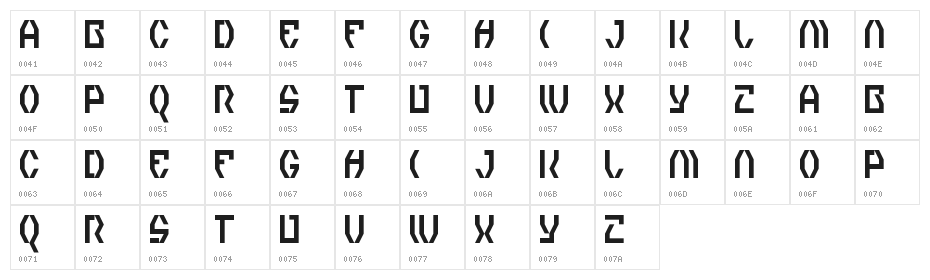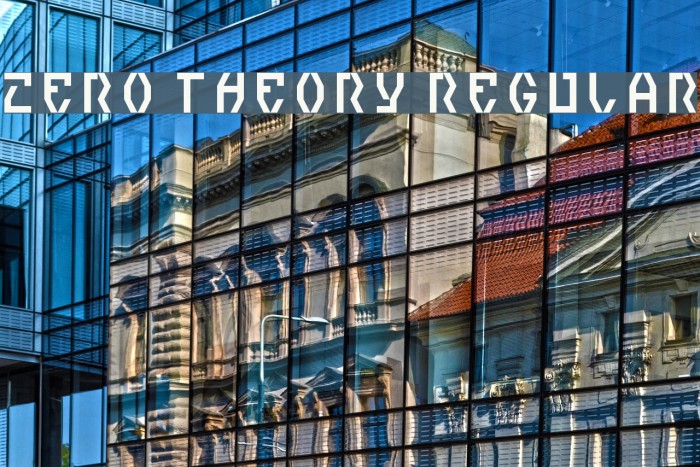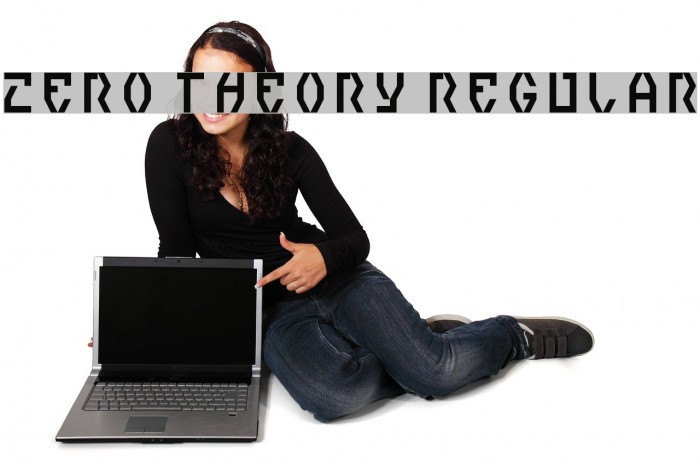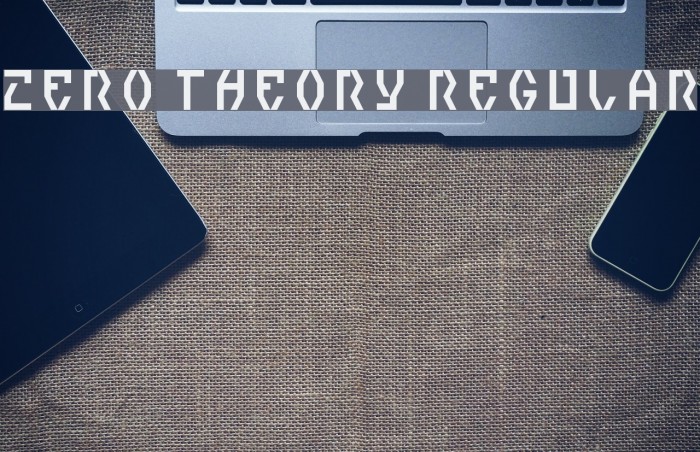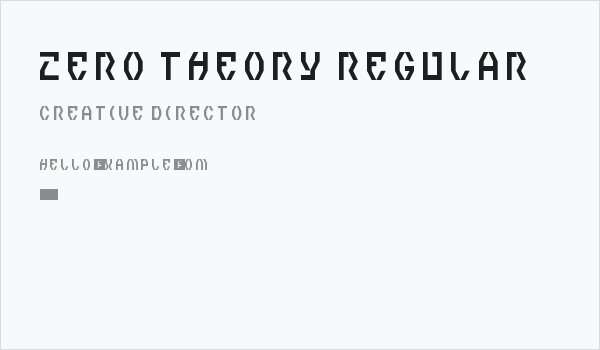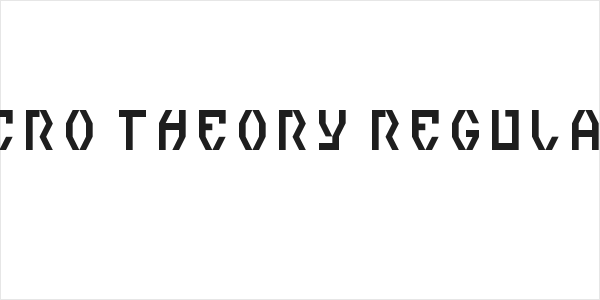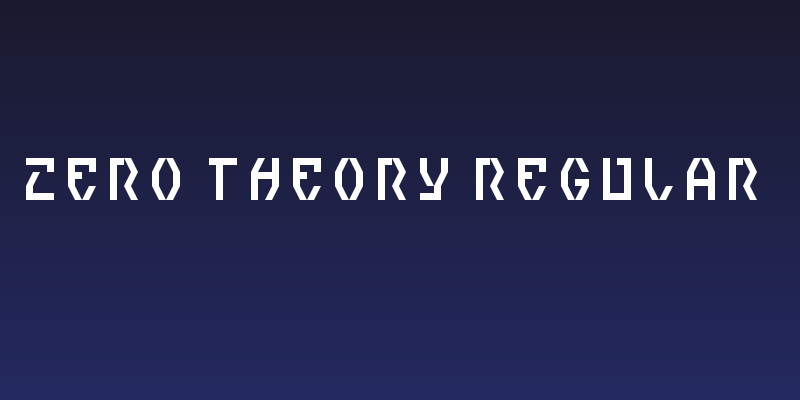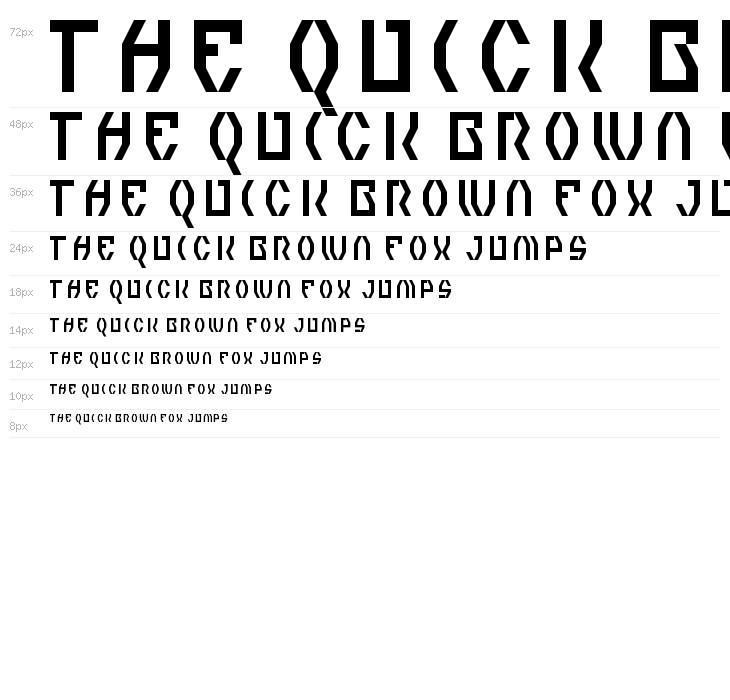
Zero Theory Regular Font
Zero Theory Regular Description
This font features a bold, geometric design with sharp angles and a futuristic aesthetic. The characters are constructed with a combination of straight lines and angular cuts, giving them a distinctive, edgy appearance. The uppercase and lowercase letters maintain a consistent style, with the uppercase letters being slightly more pronounced. The numbers and special characters follow the same geometric theme, ensuring uniformity across the font. This design is particularly striking and modern, making it ideal for projects that require a strong visual impact.
| Proposed Projects | Ideal for branding, posters, video game design, and sci-fi themed projects. |